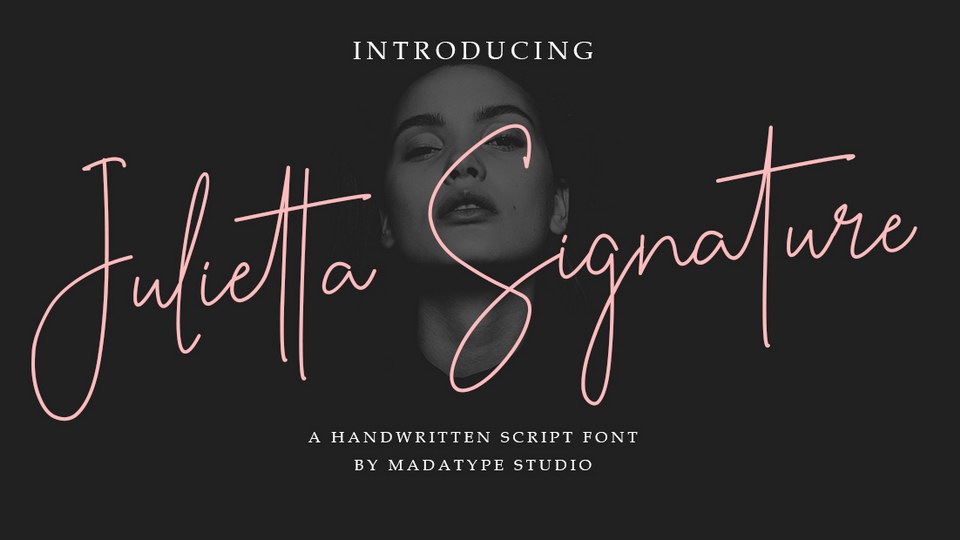
Download Julietta Signature font, a natural script that is perfect for anything that requires a handwritten or signature feel. Julietta Signature font will give you a stunning result for personal branding, merchandise, social media, letters, quotes and more.
Designer: Madatype Studio